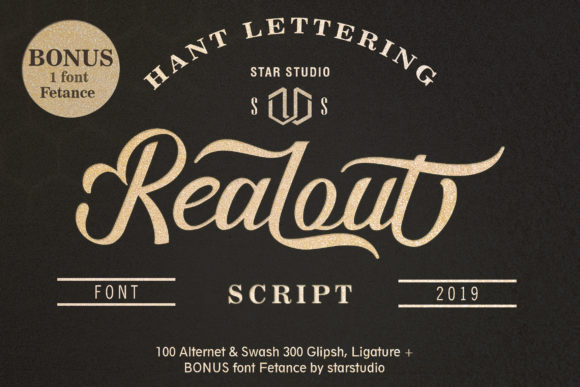
Behold the captivating Realout Font, a script typeface that dances across the page with its vintage charm. With its bold strokes and playful curves, this font is the perfect choice for adding a touch of elegance and personality to your designs.
Picture this: your social media posts, blog headers, and marketing materials adorned with the unique and enchanting letters of the Realout font. Words come alive, grabbing the attention of your audience and leaving a lasting impression. This font is more than just a collection of characters; it's an expression of your creativity and an invitation to embark on a visual journey.
But Realout isn't just visually stunning; it's also incredibly versatile. Its bold lines and retro flair lend themselves beautifully to a wide range of design projects:
- Logos and branding that exude a timeless sophistication.
- Posters and flyers that command attention with their eye-catching headlines.
- Wedding invitations and greeting cards that carry a sense of romance and elegance.
- Book covers and album art that evoke a sense of nostalgia and wonder.
With Realout Font, you have the power to transform ordinary words into captivating works of art. Let your imagination run wild and explore the endless possibilities that await you.